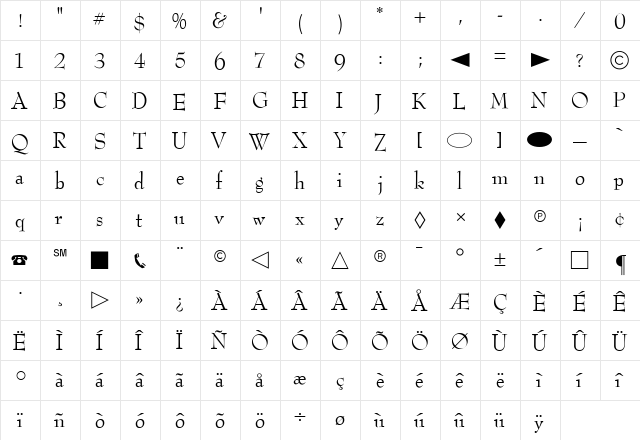
CgBernhardModernRoman Medium
Design Context for CgBernhardModernRoman Typeface
CgBernhardModernRoman is a composed and adaptable typeface that performs quietly and consistently across a wide range of design contexts.